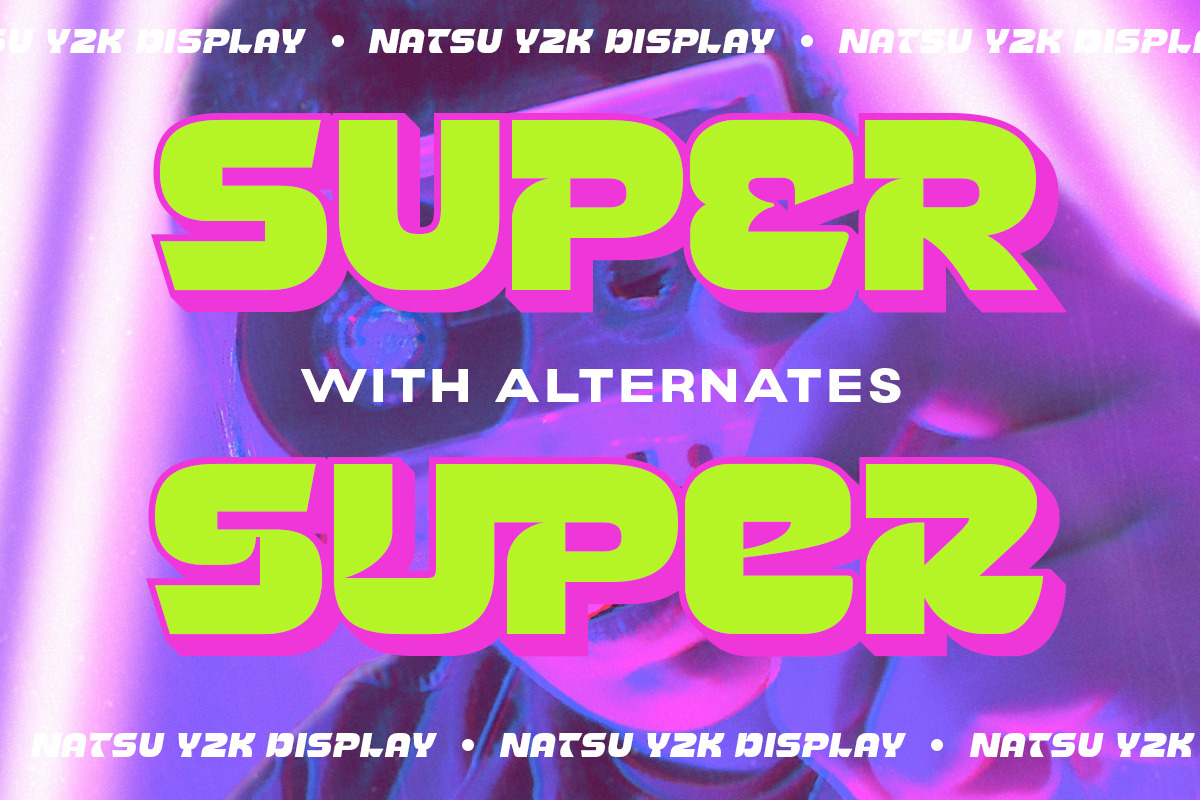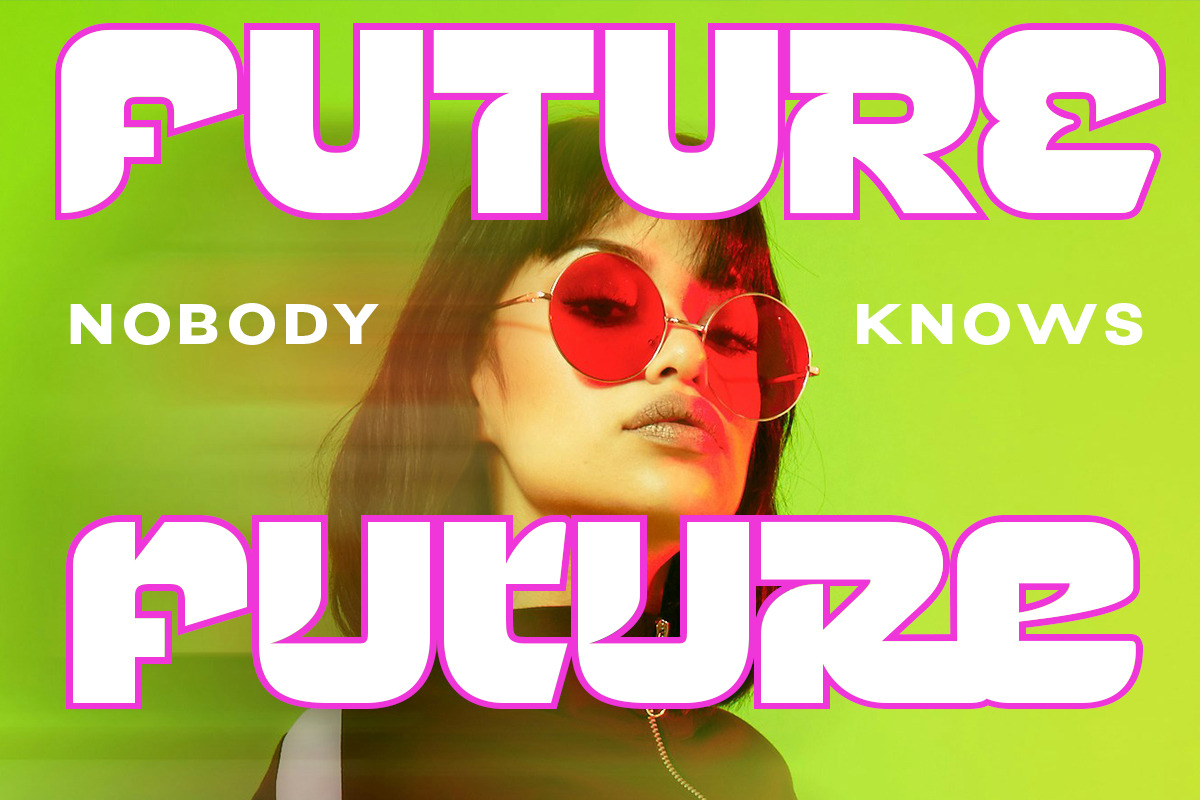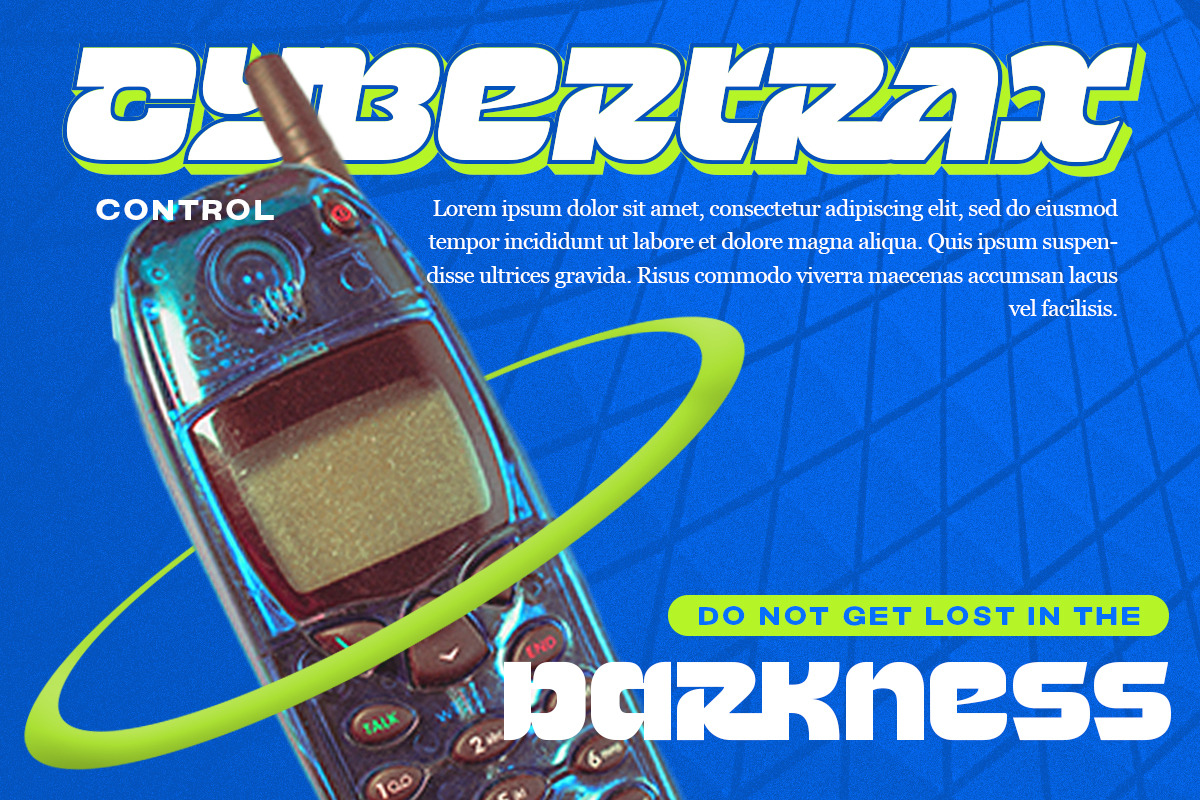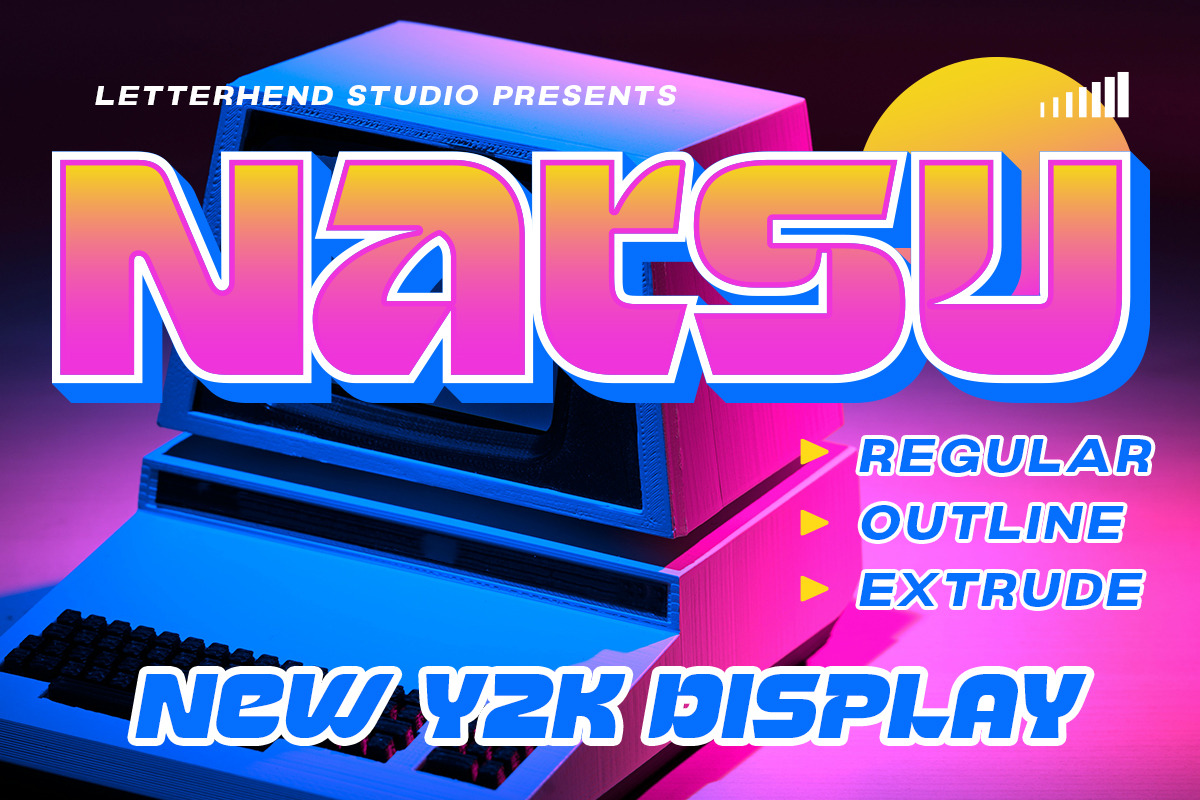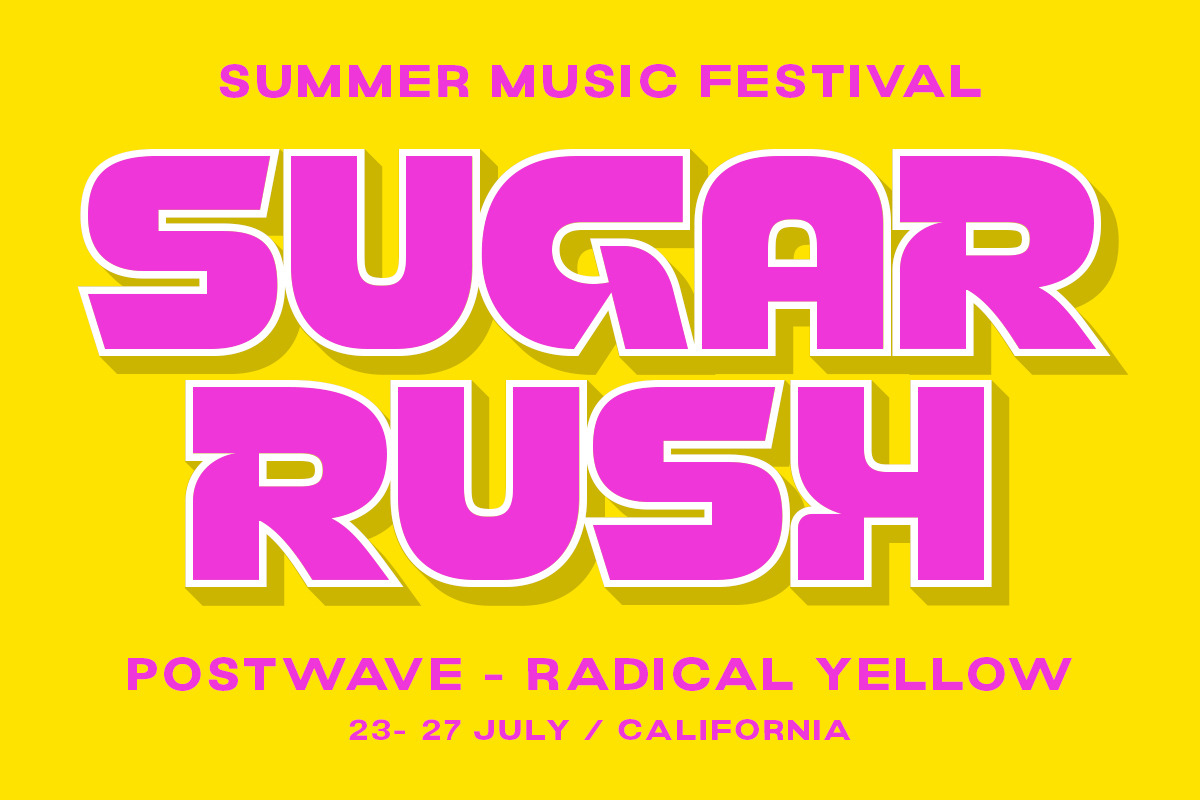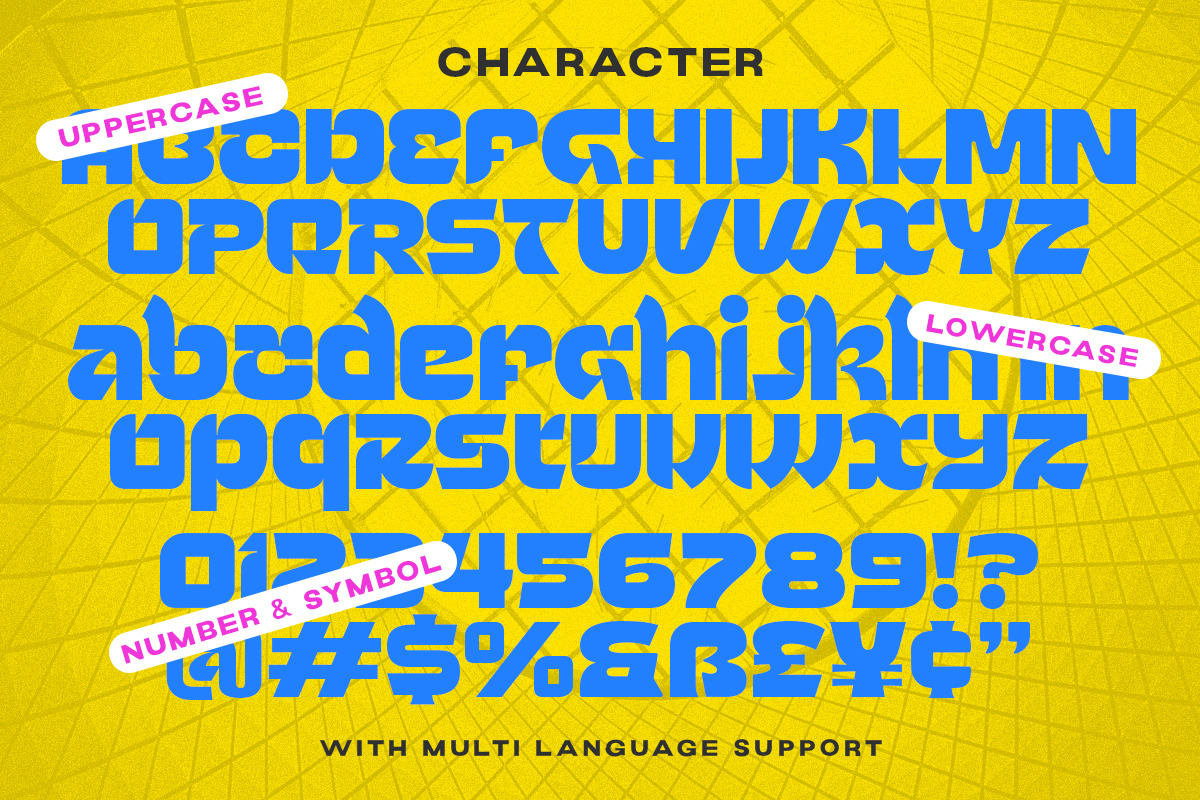
Natsu Y2K Dsiplay Font
Revive your design style with a 2000s vibe using 2YK vibes. Natsu is a bold, eye-catching display font with a playful, pop-inspired style. It’s ideal for creating headlines that grab attention and make a statement. Perfect for adding a touch of retro flair and dynamic energy to your projects.
- Regular, outline & extrude styles.